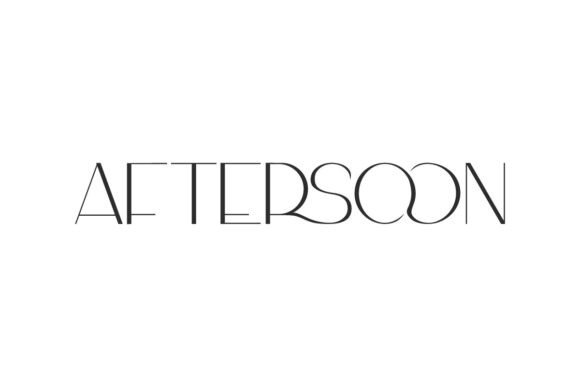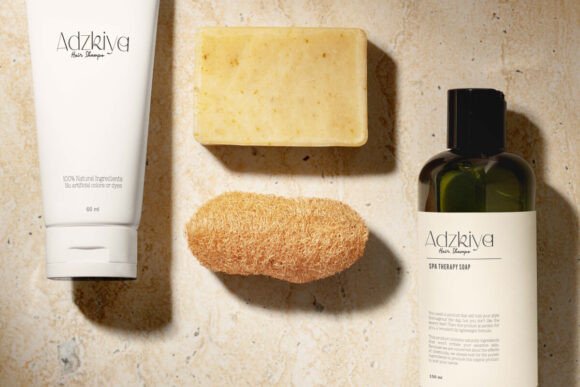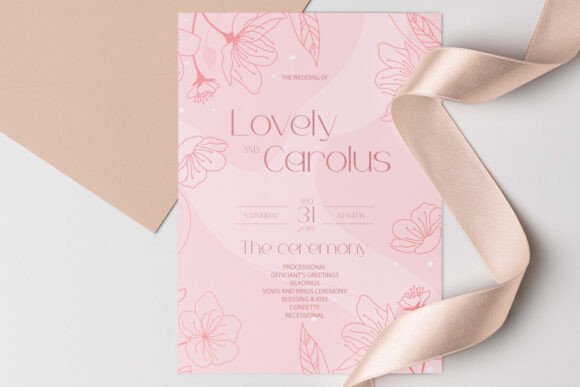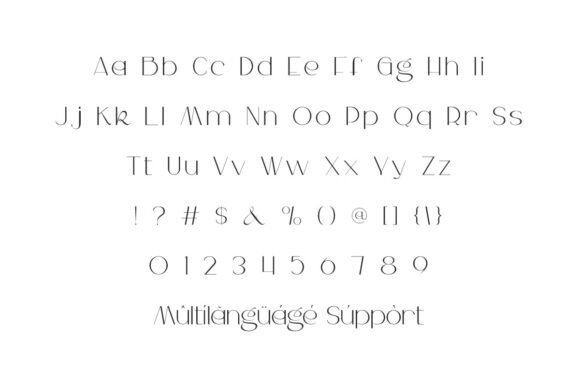
Aftersoon Font: Minimalist & Elegant Typography for Branding Design
About the Aftersoon Font
Elevate your designs with Aftersoon Font, a font that combines sophistication with readability. Aftersoon is a sleek, elegant, and minimalist font with a contemporary flair. Its sophisticated letterforms and modern design make it perfect for branding, fashion editorials, invitations, and luxury product designs. Add a touch of class to your projects with this refined typeface.
Aftersoon Font Usage Examples
Aftersoon Font Example